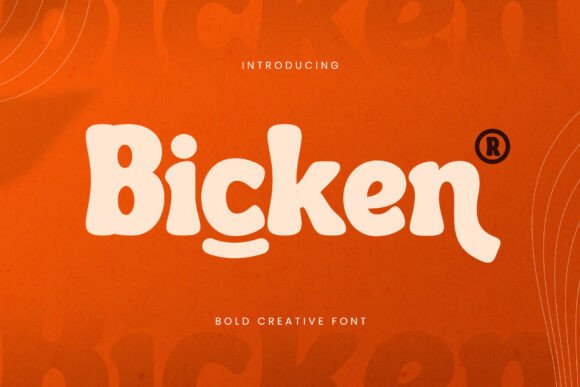
Bicken Font: The Bold and Playful Display Font for Creative Projects
In the world of typography, fonts play a crucial role in conveying the tone and personality of a brand or design. When it comes to creating eye-catching and memorable designs, a bold and playful font can make all the difference. This is where Bicken Font comes in – a dynamic and approachable display font designed by Salamahtype to bring energy and fun to your creative projects.
What is Bicken Font?
Bicken Font is a bold, chunky display font that boasts quirky details and a lively vibe. Its unique letterforms are designed to add a vibrant touch to logos, branding, posters, and other creative projects. With its playful personality and versatile design, Bicken is perfect for youthful brands, eye-catching campaigns, and designs that demand attention.
Key Features of Bicken Font
- Bold and Chunky Letterforms: Bicken Font features bold, chunky letterforms that are sure to grab attention.
- Quirky Details: The font’s quirky details add a playful touch to any design.
- Dynamic and Approachable Style: Bicken’s dynamic and approachable style makes it perfect for youthful brands and designs that demand attention.
- Versatile Design: The font’s versatile design ensures it can adapt effortlessly to various design needs.
Ideas for Using Bicken Font
Bicken Font is perfect for a wide range of creative projects, including:
- Logos and Branding: Use Bicken to create a bold and memorable logo that stands out.
- Posters and Flyers: Add a playful touch to your posters and flyers with Bicken’s lively vibe.
- Social Media Graphics: Use Bicken to create eye-catching social media graphics that grab attention.
- Headings and Titles: Use Bicken as a display font for headings and titles to add a bold and playful touch.
Benefits of Using Bicken Font
Using Bicken Font in your designs comes with several benefits, including:
- Instant Attention: Bicken’s bold and playful design grabs attention instantly.
- Fresh and Exciting: The font’s lively vibe ensures your designs feel fresh and exciting.
- Versatility: Bicken’s versatile design makes it suitable for various design needs.
- Memorable: Bicken’s unique letterforms make your designs truly unforgettable.
How Bicken Font Stands Out
In a world of fonts, Bicken stands out with its unique combination of bold, chunky letterforms and quirky details. Here’s how it compares to other fonts:
- Unique Personality: Bicken has a distinct personality that sets it apart from other fonts.
- Dynamic Style: The font’s dynamic style ensures it can adapt to various design needs.
- Attention-Grabbing: Bicken’s bold design grabs attention instantly, making it perfect for designs that demand attention.
Tips for Using Bicken Font Effectively
To get the most out of Bicken Font, follow these tips:
- Pair with Simple Fonts: Pair Bicken with simple fonts to create a striking contrast.
- Use for Headings: Use Bicken as a display font for headings and titles to add a bold and playful touch.
- Experiment with Colors: Experiment with different colors to bring out the font’s lively vibe.
- Keep it Simple: Keep your design simple to let Bicken’s bold design take center stage.
In conclusion, Bicken Font is a bold and playful display font that can add energy and fun to your creative projects. With its unique letterforms, quirky details, and dynamic style, Bicken is perfect for youthful brands, eye-catching campaigns, and designs that demand attention. By incorporating Bicken into your design toolkit, you’ll be able to create memorable and attention-grabbing designs that stand out.